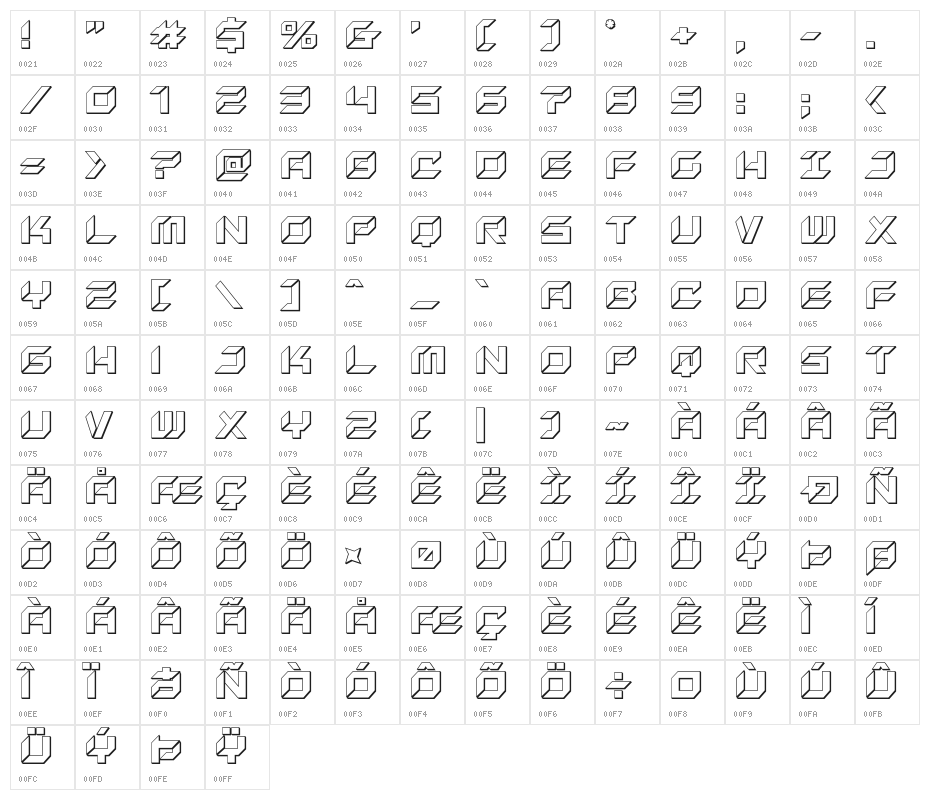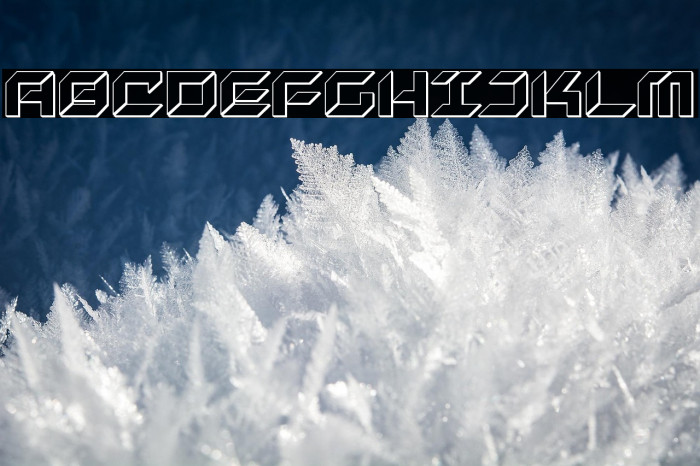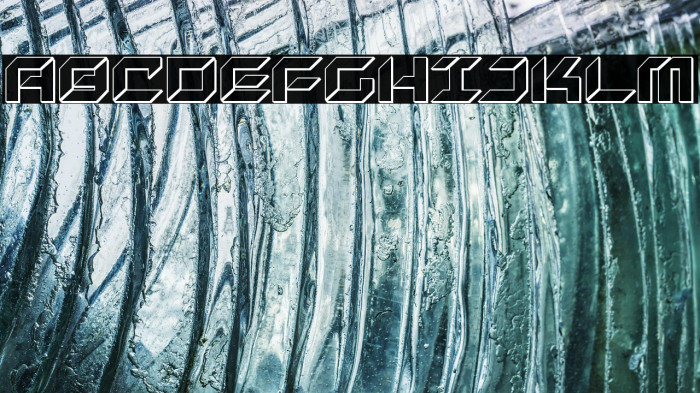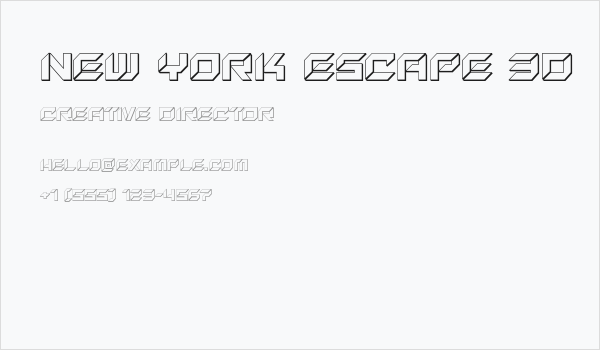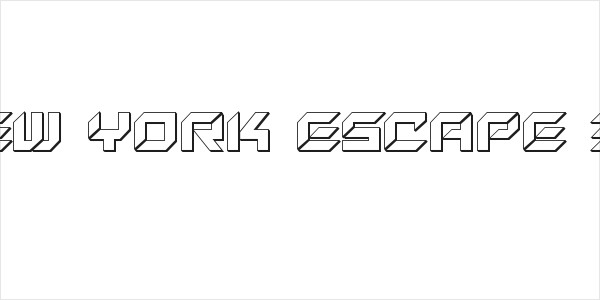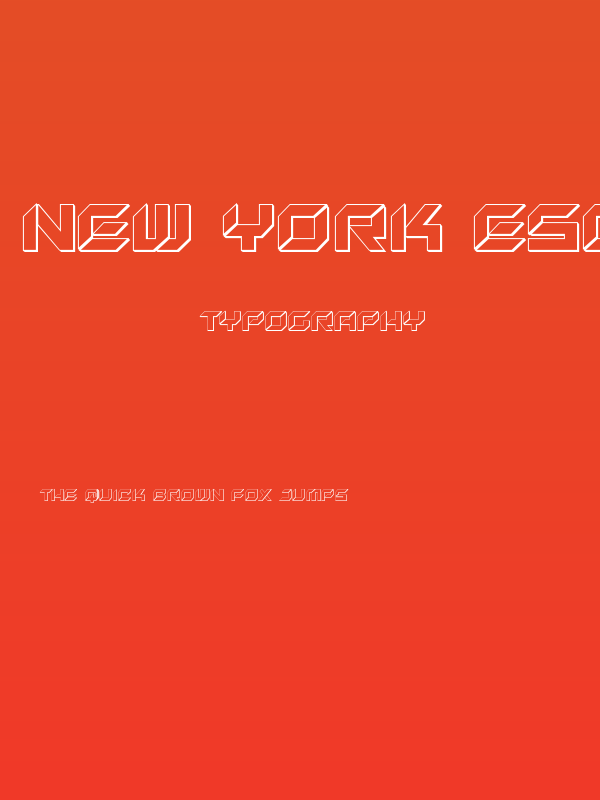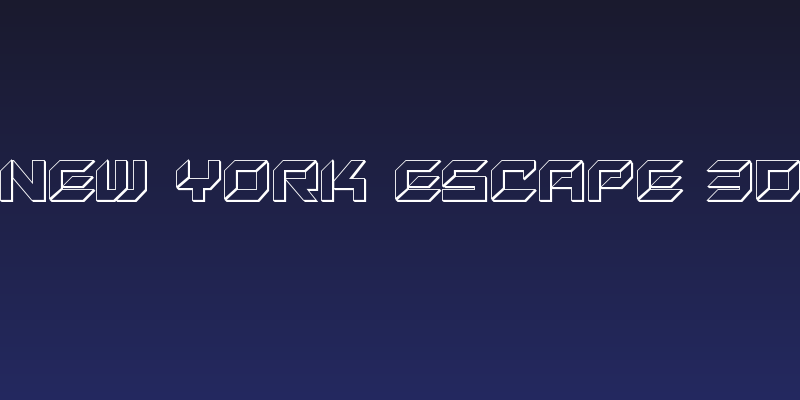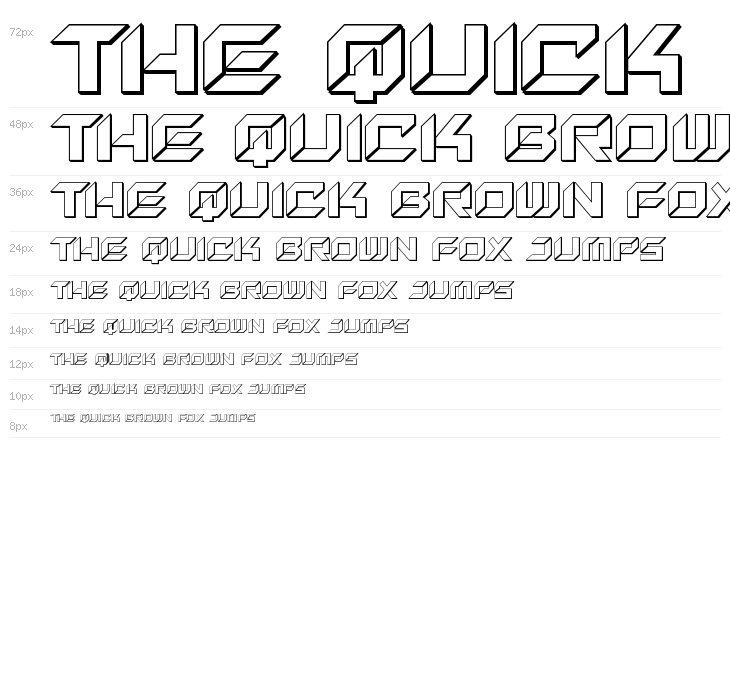
New York Escape 3D Font
New York Escape 3D Description
This font features a bold, geometric design with a 3D effect, characterized by sharp angles and a blocky structure. The letters are outlined, creating a sense of depth and dimension. Each character appears to be constructed from a series of connected lines, giving it a futuristic and industrial feel. The uppercase and lowercase letters maintain a consistent style, with the numbers and special characters following the same design principles. The overall appearance is striking and attention-grabbing, making it suitable for projects that require a modern and edgy look.
| Proposed Projects | Ideal for video game titles, tech-themed posters, futuristic branding, and digital artwork. |